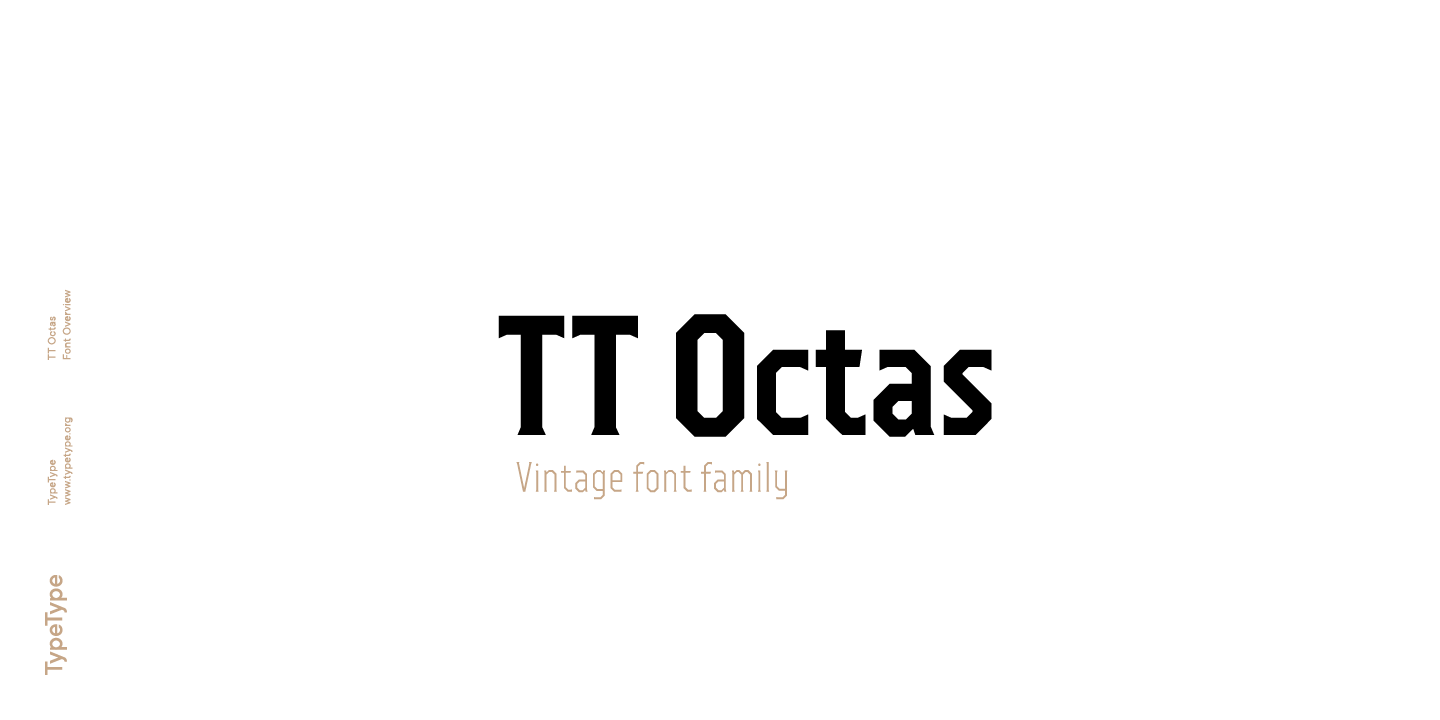
The TT Octas Font is incredibly versatile, making it an excellent choice for a wide array of design projects that demand a sharp, modern, and distinctly technical aesthetic. Imagine it bringing a sleek, futuristic edge to tech startup branding and innovative software interfaces, making complex data visualizations pop with precision, or adding a sophisticated, engineered feel to editorial layouts for scientific and automotive publications. It's also fantastic for crafting crisp mobile app designs, unique event invitations for conferences, and commanding website headers that stand out with their precise construction. Its inherent clarity and geometric rigor make it perfect for any project striving to communicate efficiency, advanced concepts, and an uncluttered visual message.
What makes TT Octas Font so exciting is its unique ability to blend the clean lines of a geometric sans-serif with a subtle technical flair, often characterized by its precise angles and balanced proportions. It frequently features open counter-forms and consistent stroke widths that ensure individual characters are distinct and highly legible across various applications. This font doesn't just display text; it builds a system, making your message feel authoritative, cutting-edge, and effortlessly smart. Its balance of robust presence and remarkable clarity ensures that your designs are not only visually effective but also easily understood. It's a typeface that brings an atmosphere of contemporary innovation and functional beauty to your typography, guaranteeing your projects leave a polished and memorable impression.
The TT Octas Font family typically includes a comprehensive range of weights and stylistic alternatives to provide extensive creative flexibility. While specific options can differ, you can generally expect to find alternatives like Hairline, Thin, Light, Regular, Medium, Bold, and Black, often accompanied by corresponding italics, allowing for diverse visual impact and hierarchy. These different weights and stylistic sets allow you to create dynamic visual structures and add nuanced emphasis to your typography, ensuring a cohesive and thoughtfully designed outcome. This comprehensive family support ensures that whether you need a strong, commanding headline or a subtle, precise accent, TT Octas Font Free Download offers the perfect elements to bring your modern vision to life.